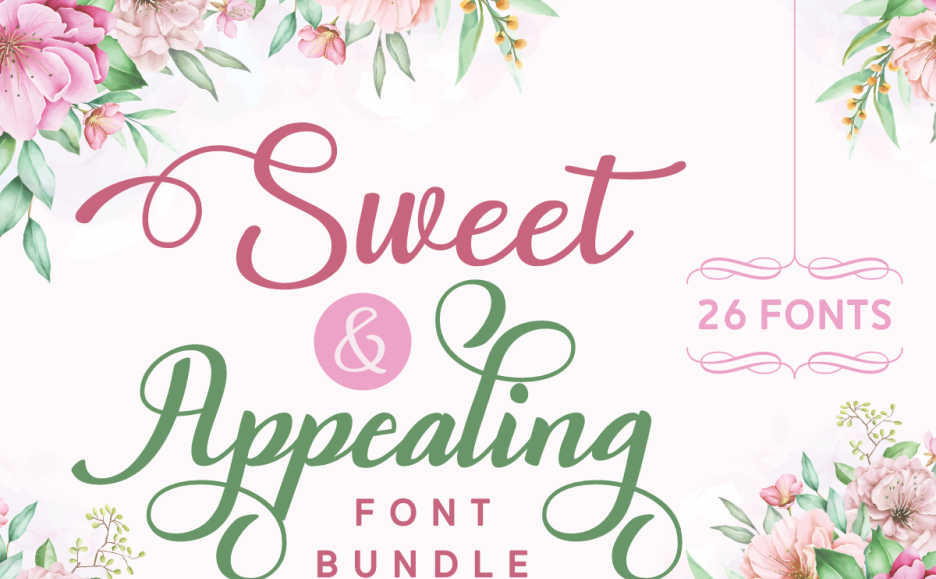
Introducing the Sweet And Appealing Font Bundle, a carefully curated collection of charming typefaces designed to elevate your creative projects. This bundle includes a variety of font styles, from playful scripts to elegant serifs, ensuring you have the perfect typeface for any occasion.
- Diverse font styles to suit various design needs
- Multiple weights for added versatility
This bundle features a range of fonts that are ideal for branding, logos, web design, print materials, and user interfaces. Each font is crafted with attention to detail, ensuring readability and aesthetic appeal.
- Utilize these fonts for creating eye-catching logos and branding materials.
- Incorporate them into your website design for a unique look.
- Use in print projects like invitations, posters, and flyers to add a personal touch.